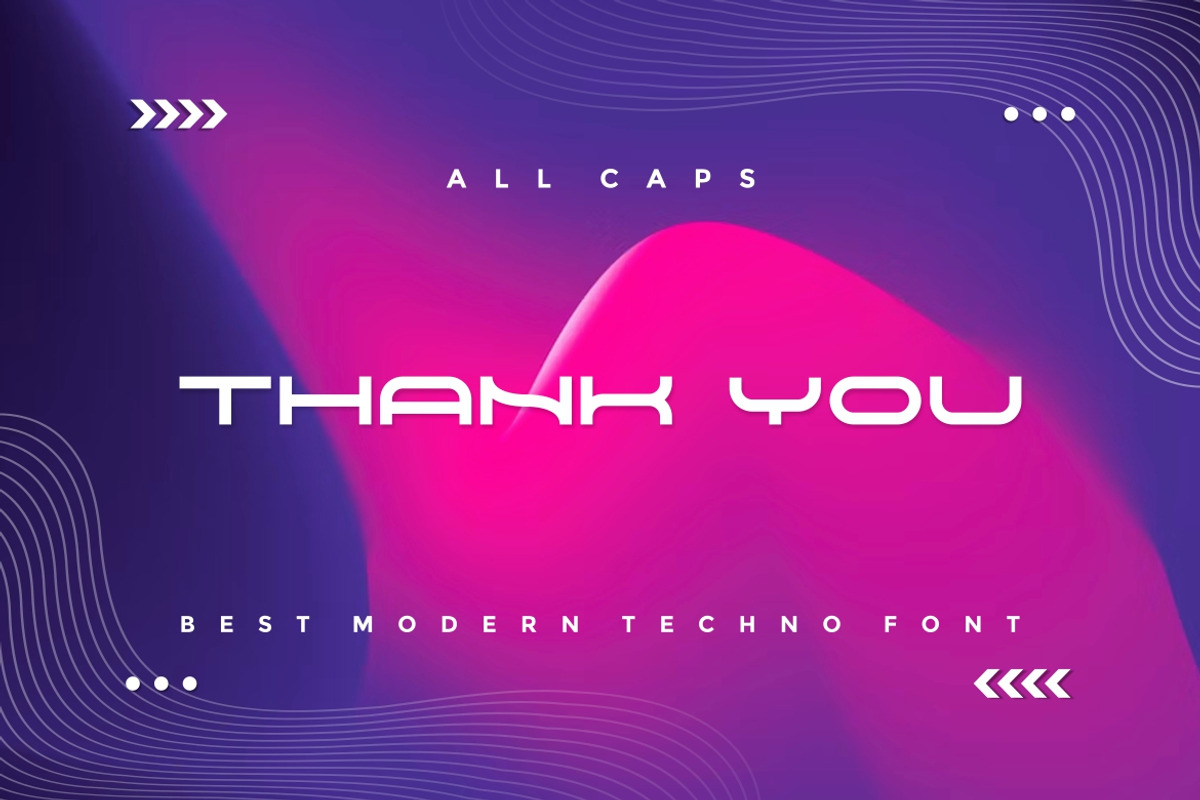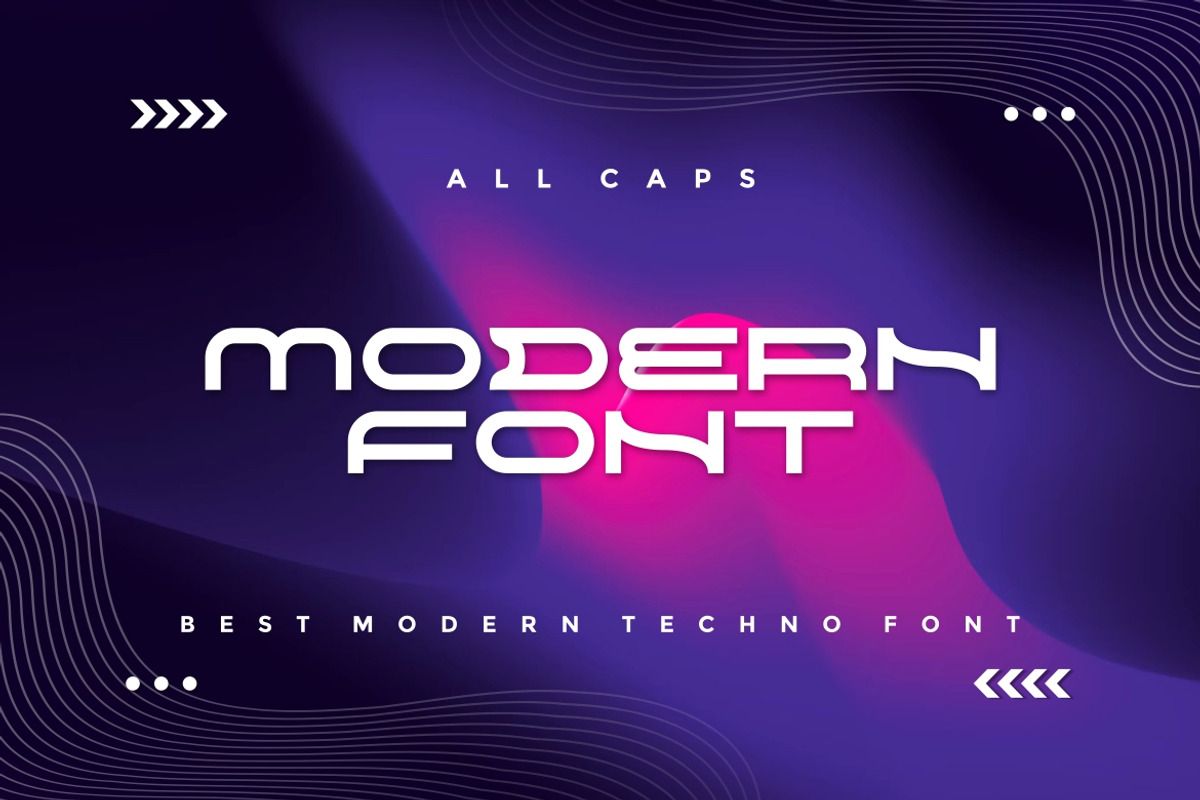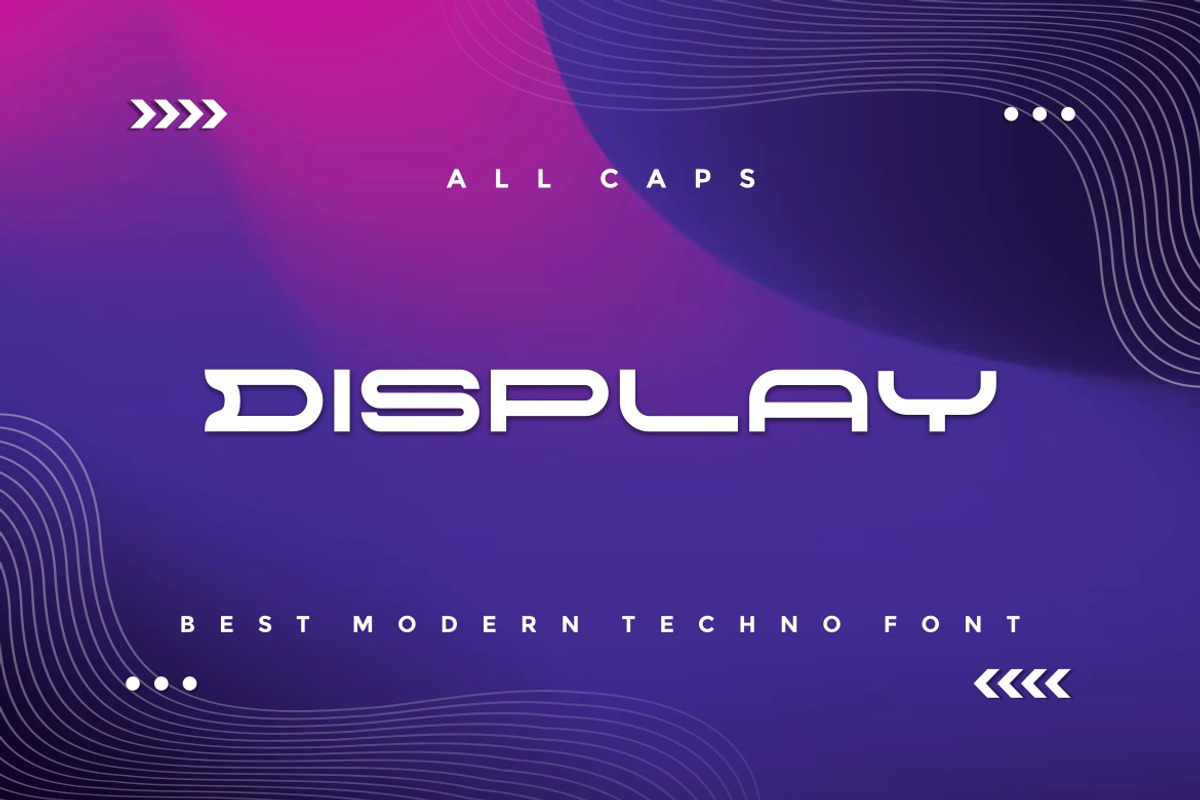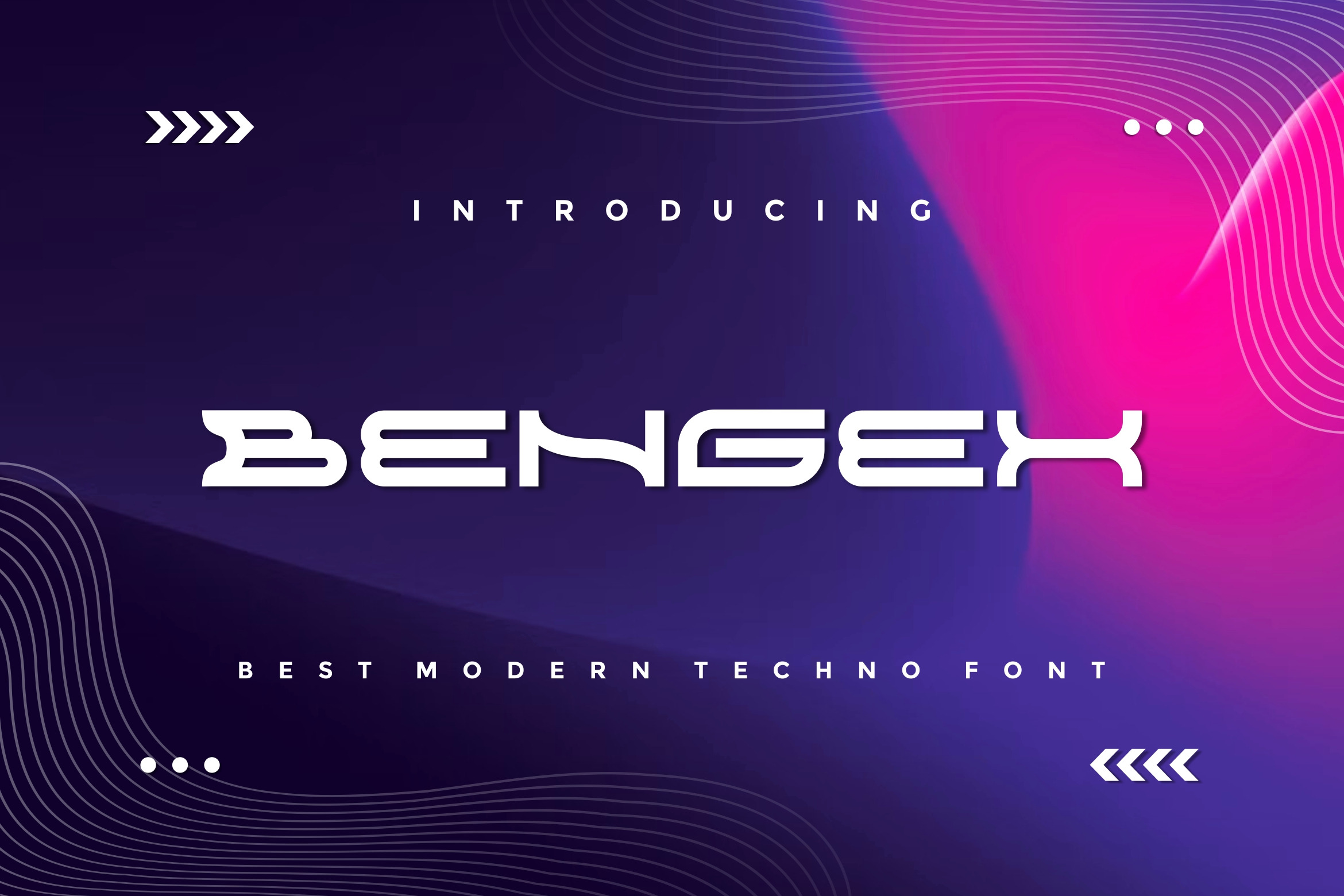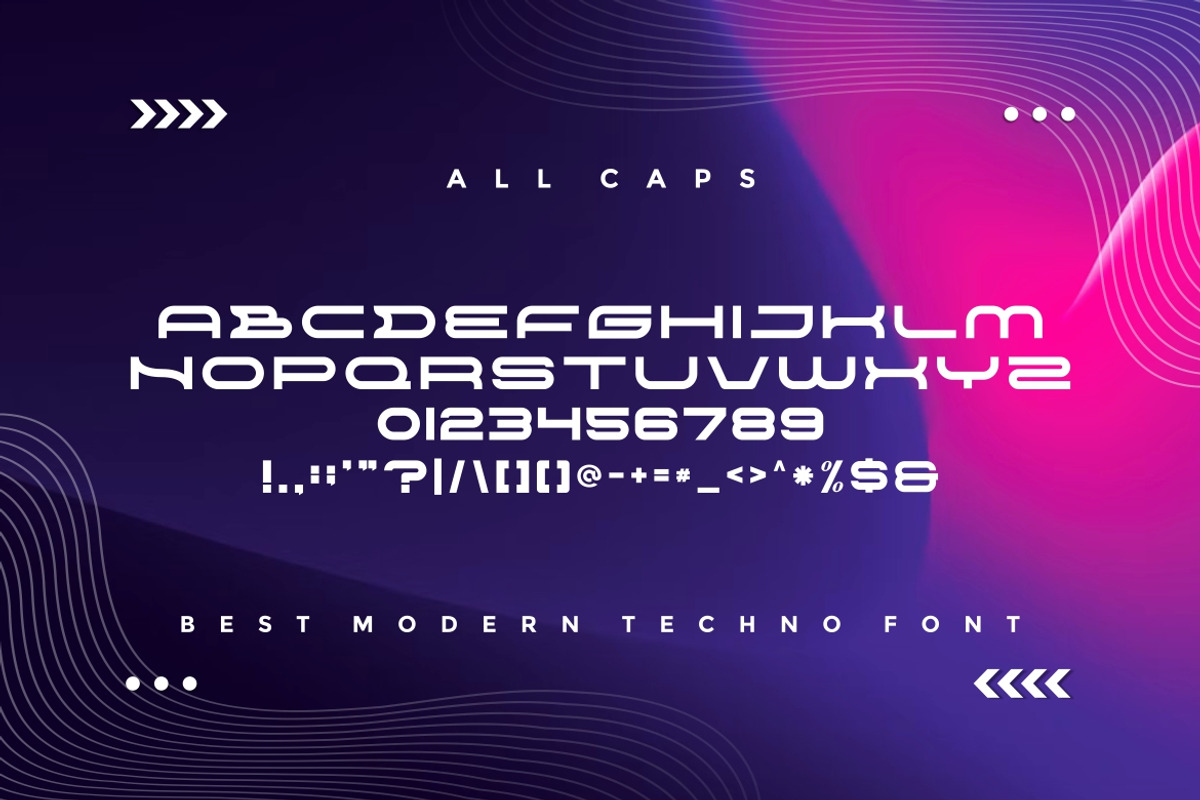
Bengex Modern Techno Font
Introducing our new product Bengex - Modern Font
Bengex is a bold, modern display font with playful flair, ideal for attention-grabbing headlines, logos, and diverse design projects. Versatile and readable in both digital and print, Bengex adds a dynamic touch to your message.